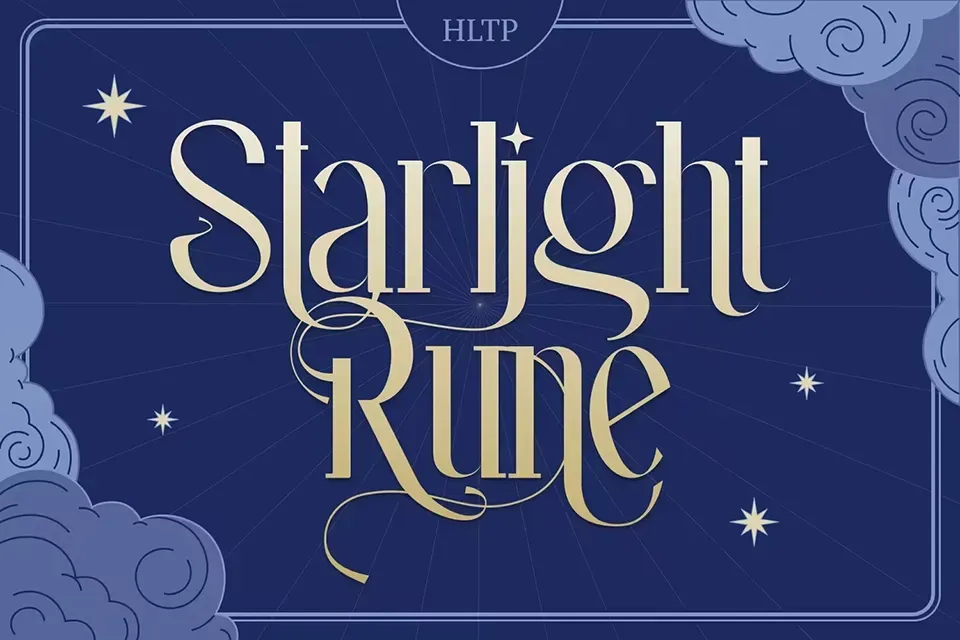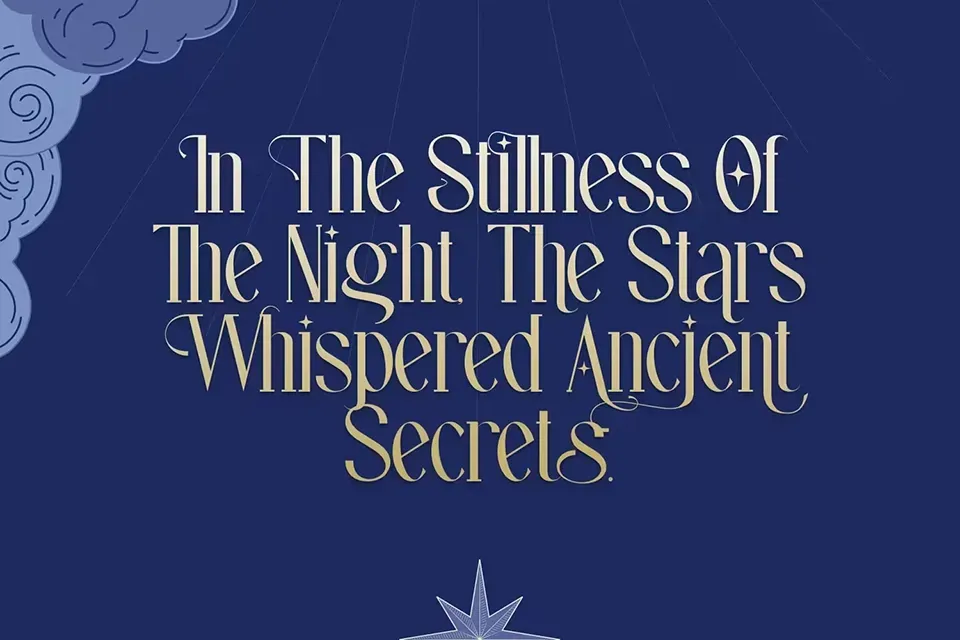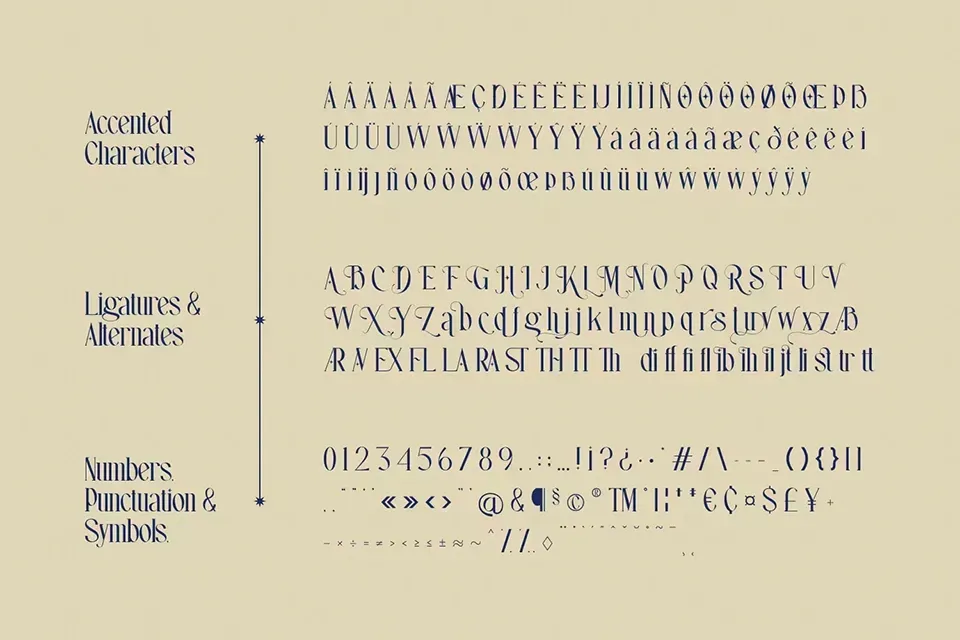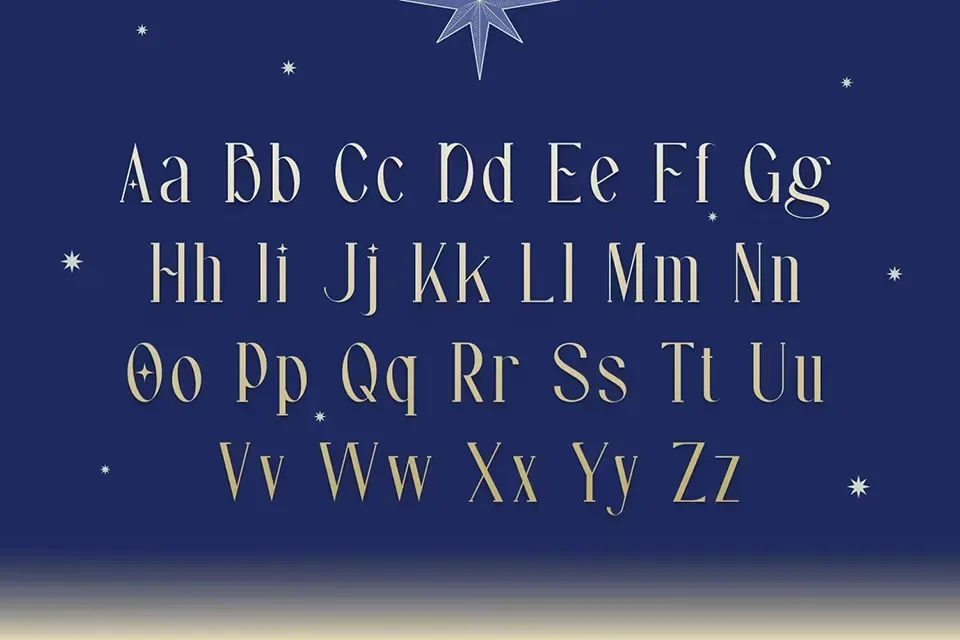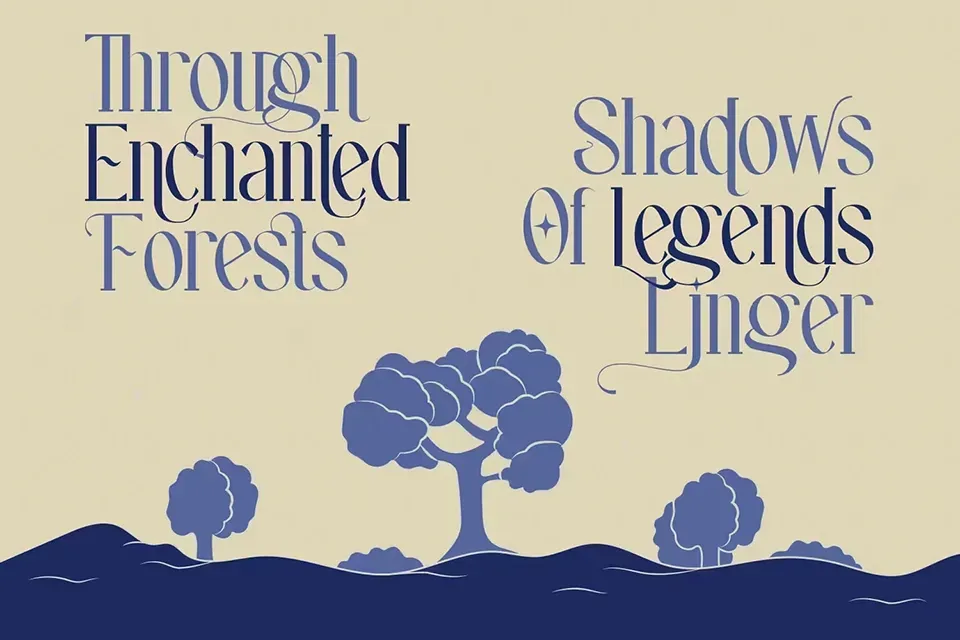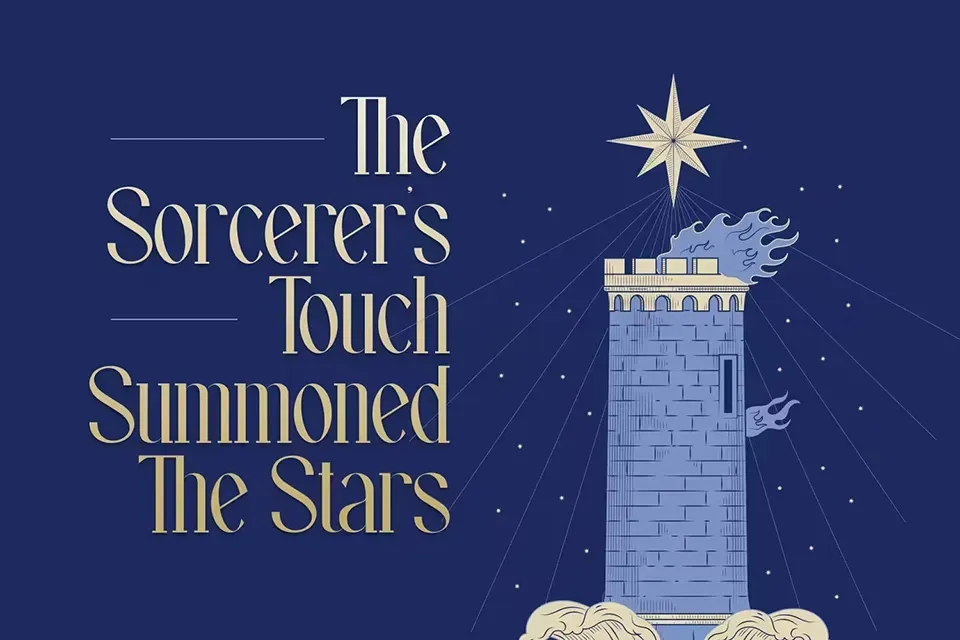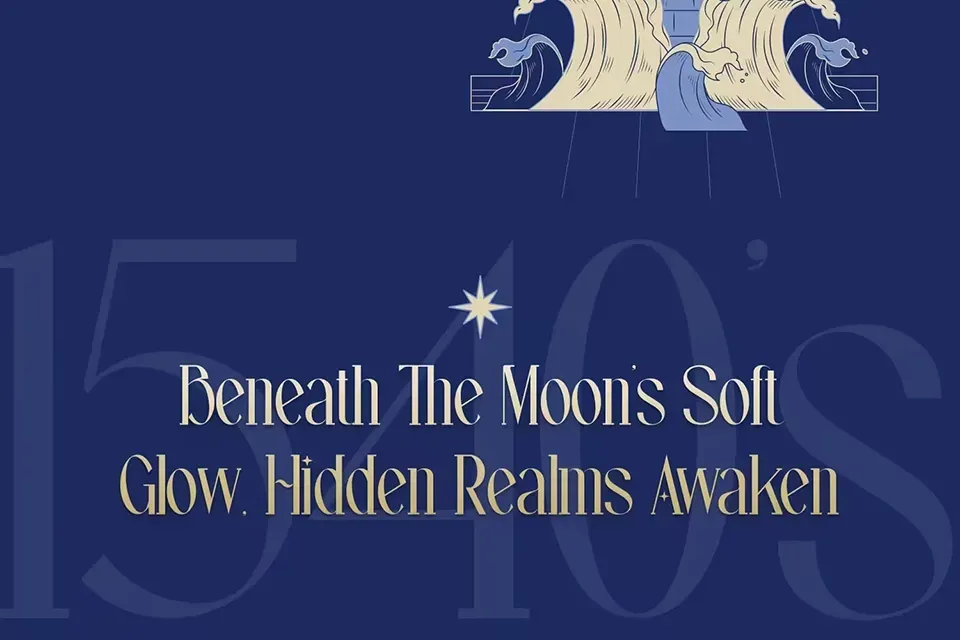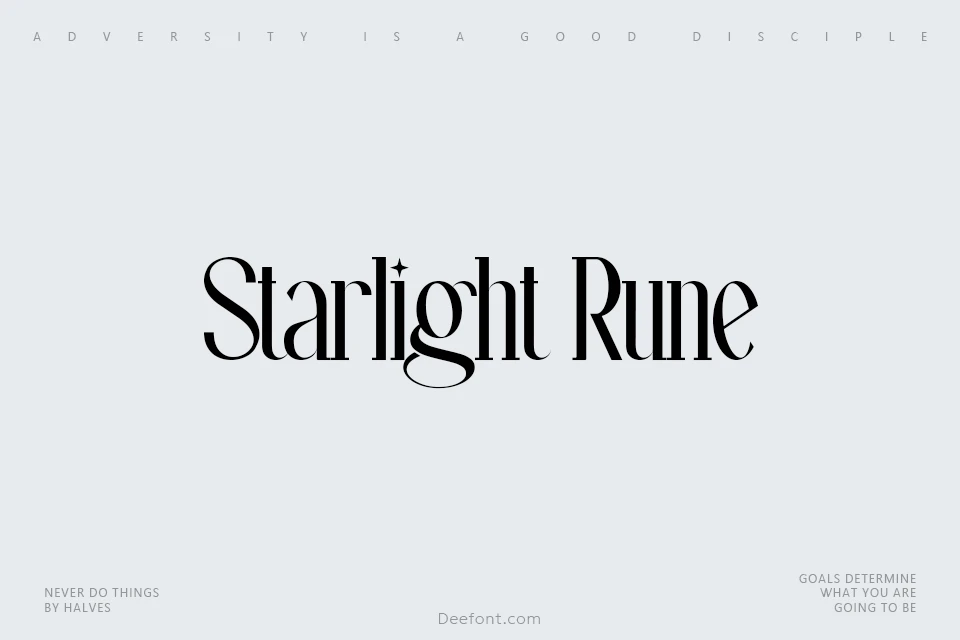
Starlight Rune Font
Starlight Rune Font is an enchanting display typeface that captures the magic and mystery of the celestial realm. With its elegant curves, intricate details, and whimsical flourishes, this font is perfect for projects that demand a touch of fantasy and sophistication. Ideal for invitations, posters, book covers, or any creative endeavor, Starlight Rune evokes a sense of wonder and transports your audience to a mystical world. Featuring both regular and alternate glyphs, it offers versatility to elevate your designs to new heights. Let Starlight Rune add a magical charm to your creations!